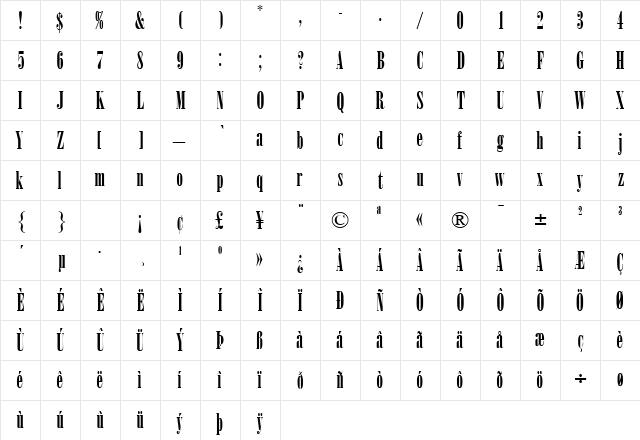
WinsomSSK Regular
Design Context for WinsomSSK Typeface
WinsomSSK offers clean, dependable letterforms without strong stylistic allegiance, making it a practical choice for designers who need flexibility.
Pro Tip: Use WinsomSSK in both headline and body roles to test its range before committing to a single application.